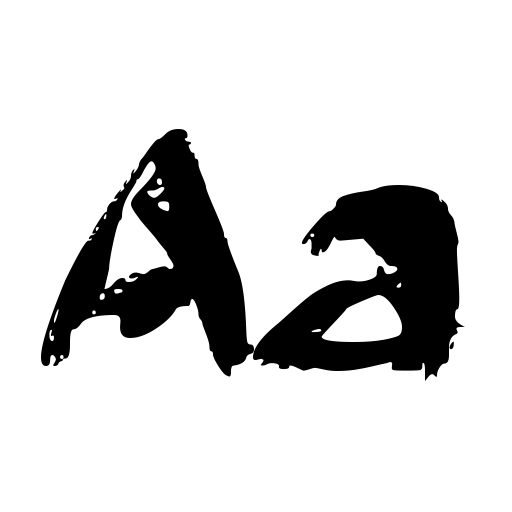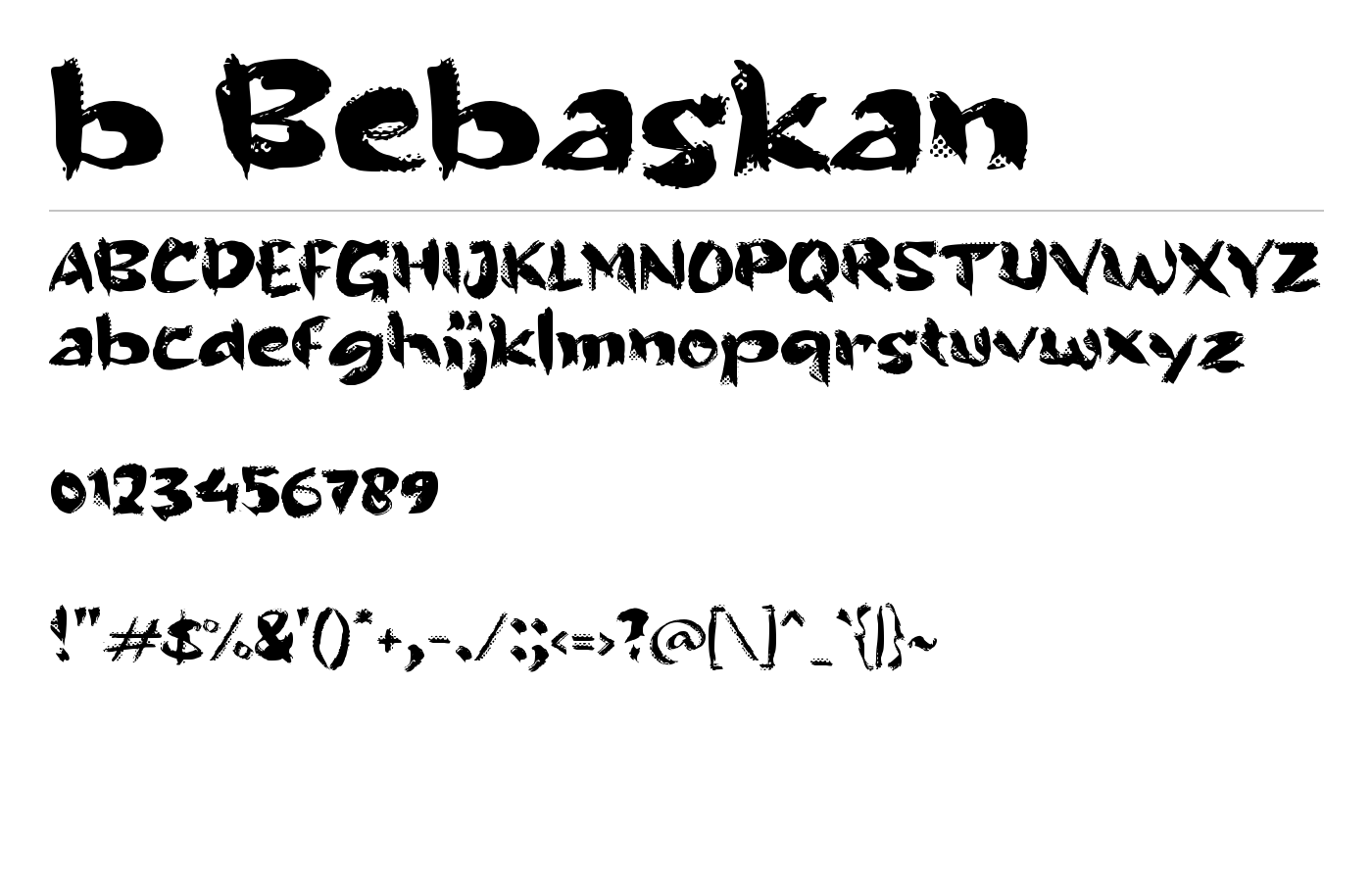
Bebaskan is a bold, expressive brush-style font with a rough, textured appearance that gives it an energetic and handmade feel. Its wide stance and uneven edges lend a casual, artistic vibe, making it ideal for creative projects, eye-catching headlines, and designs that want to convey spontaneity and originality. Perfect for posters, logos, and branding that seek a playful yet impactful look.
b Bebaskan Font
About b Bebaskan Font